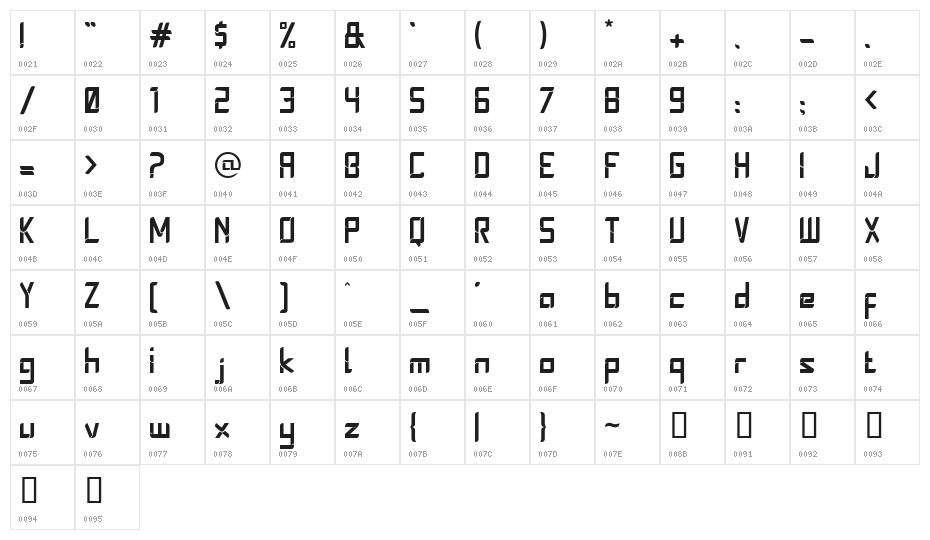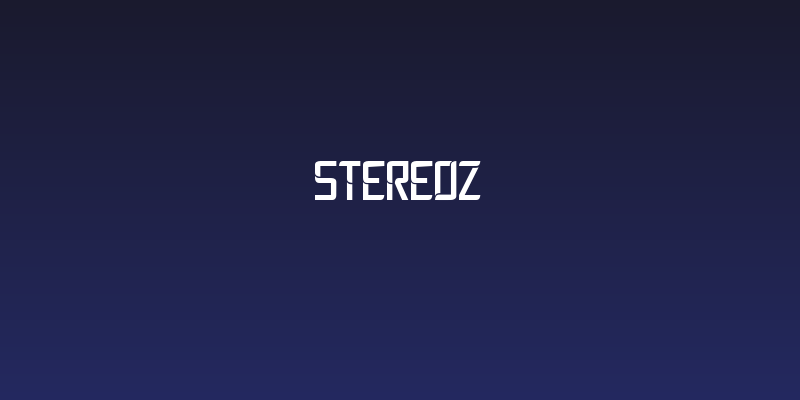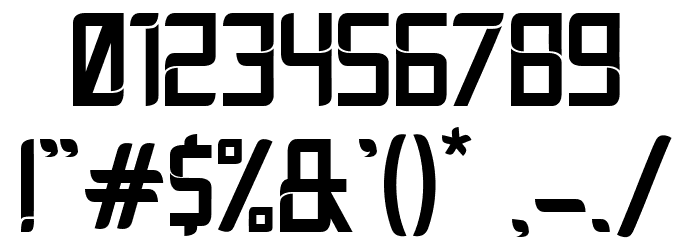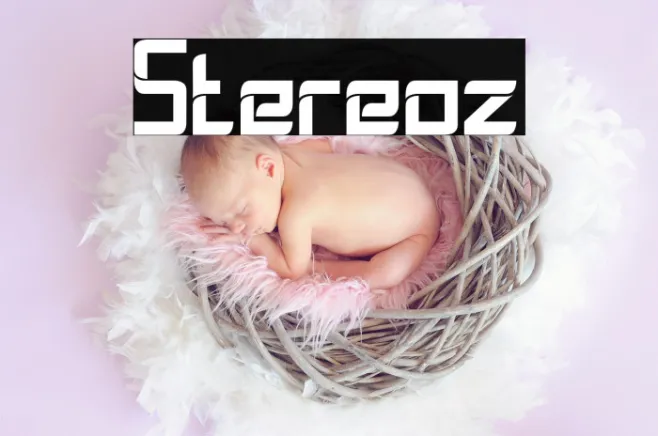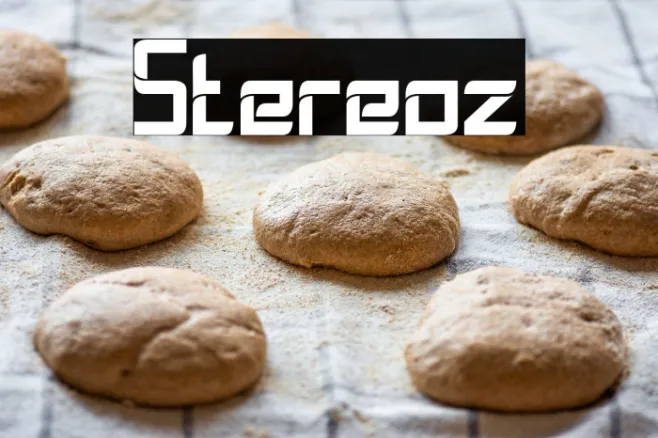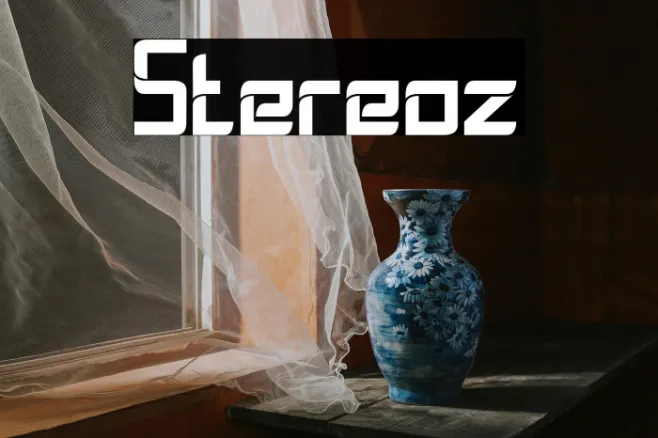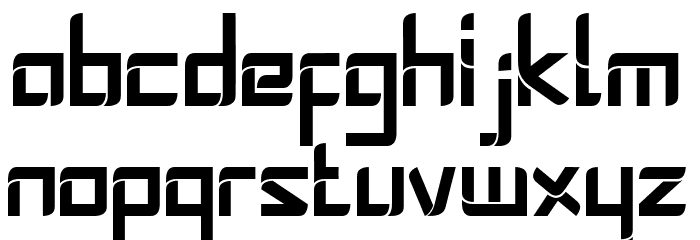
Stereoz Font
Stereoz Description
This font features a bold and futuristic design with geometric elements and sharp angles. The uppercase letters are distinct with a unique cut-out style that gives them a modern, tech-inspired look. The lowercase letters maintain the same angular aesthetic, providing a cohesive appearance across the typeface. Numbers and special characters are designed to match the overall style, making them suitable for digital and print media. The font's boldness and unique character shapes make it stand out, ideal for attention-grabbing headlines or logos.